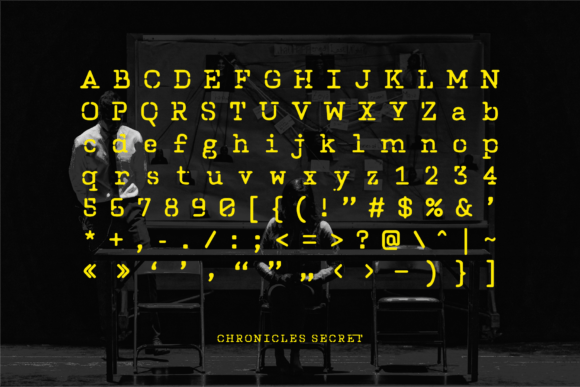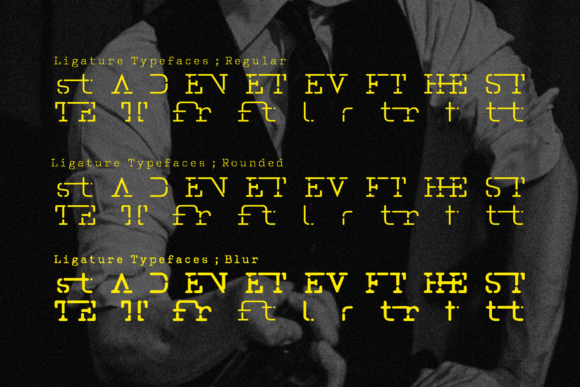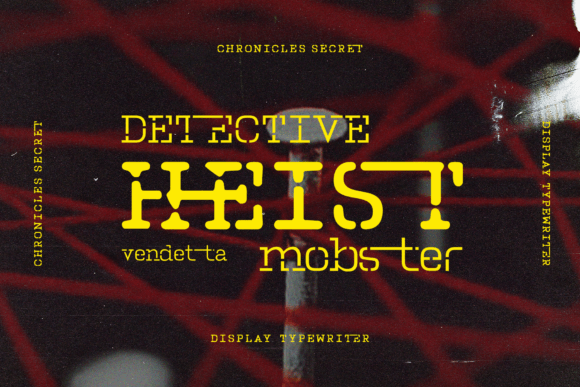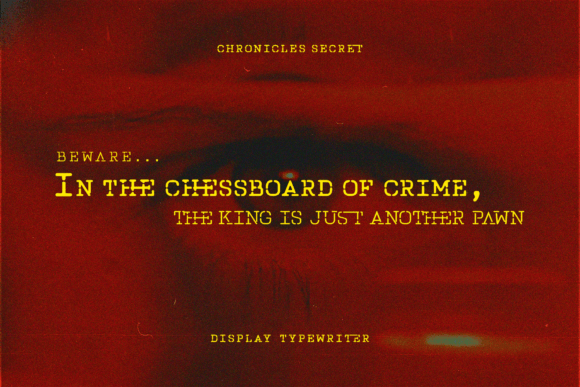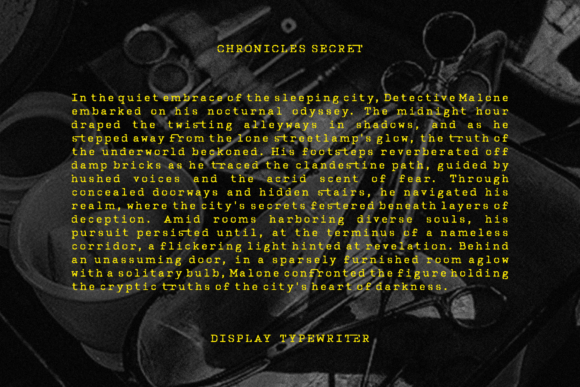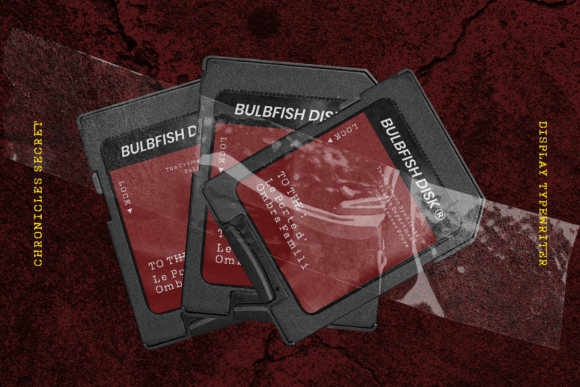
The Chronicles of a Designer’s Quest: Uncovering the Magic of Chronicles Secret
I still remember the late nights spent scrolling through font libraries, searching for that perfect typeface to bring my design project to life. My client wanted a vintage touch, something that whispered tales of suspense and mystery. That’s when I stumbled upon Chronicles Secret, a font that would change the game for me and my design endeavors.
A Font Inspired by the Past, Crafted for the Present
Chronicles Secret is more than just a font – it’s an experience. Inspired by the rhythmic clatter of vintage typewriters, it brings a unique blend of nostalgia and modernity to the table. With its three distinct styles – angular, rounded, and smooth – this font offers a versatile range of options to suit any narrative. Whether you’re a designer, crafter, or creative hobbyist, Chronicles Secret has something for everyone.
What I Love About Chronicles Secret
- ✨ Unique blend of typewriter charm and contemporary flair
- ✅ Three distinct styles: angular, rounded, and smooth
- 🔍 Diverse ligatures that echo the intricate dance of typewriter keys
- 💫 Perfect for adding a touch of vintage magic to your designs
While Chronicles Secret is an amazing font, there are a few things to keep in mind:
- ⚠️ Some users might find the angular style a bit too bold for certain projects
- 🤔 The font’s vintage inspiration might not be suitable for very modern or minimalist designs
The story behind Chronicles Secret begins with a passion for vintage typewriters and the art of storytelling. The font’s creator, a designer with a love for mystery and suspense, set out to craft a typeface that would evoke the feeling of a bygone era. With Chronicles Secret, they aimed to bring a touch of magic to the world of design.
| Font Name | Chronicles Secret Font |
| Author | Indotype Foundry |
| What inspired the creation of Chronicles Secret? | The font’s creator was inspired by the rhythmic clatter of vintage typewriters and the art of storytelling. |
| What are the different styles of Chronicles Secret? | Chronicles Secret comes in three distinct styles: angular, rounded, and smooth. |